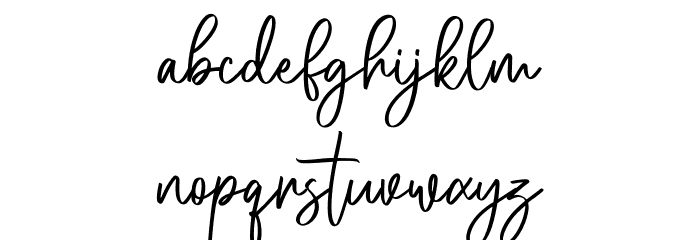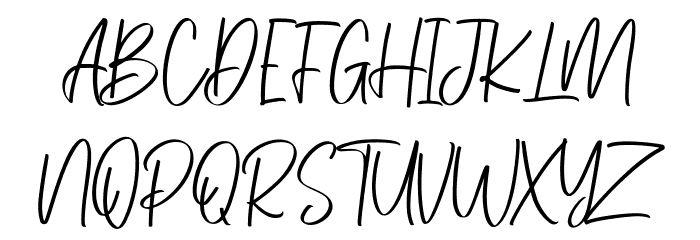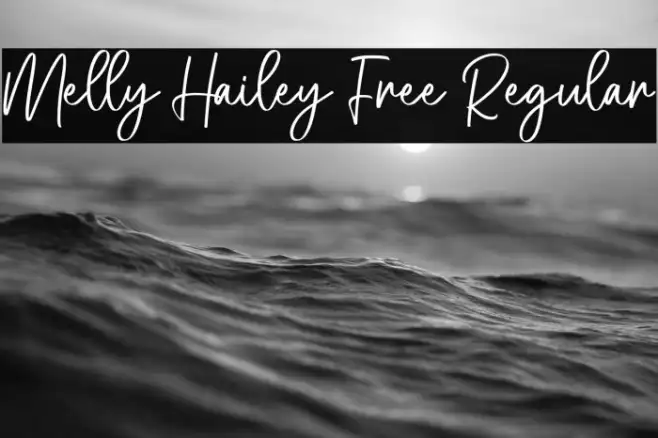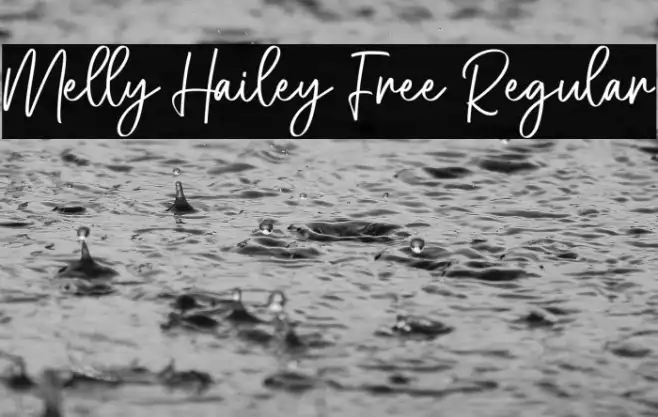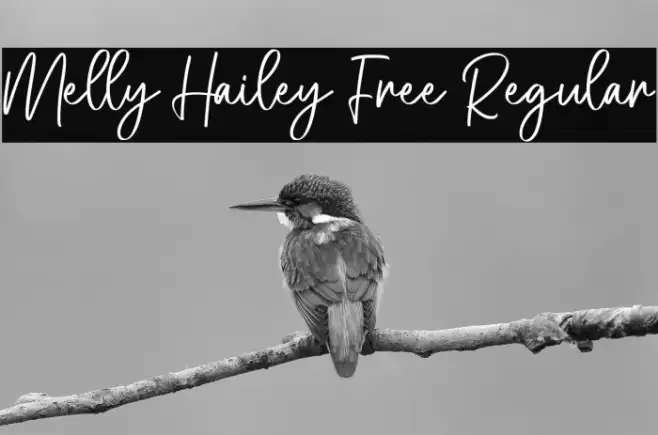
Melly Hailey Free Regular Font
This font features a flowing, handwritten style that exudes elegance and personality. The letters are characterized by their smooth, cursive strokes and slight slant, giving them a dynamic and lively appearance. The uppercase letters are bold and prominent, while the lowercase letters maintain a consistent flow, enhancing readability. The numbers and special characters are designed to match the overall aesthetic, making this font versatile for various applications. Its playful yet sophisticated look makes it suitable for creative projects.
A flowing, handwritten font with elegant cursive strokes.
- Proposed Projects: Ideal for wedding invitations, greeting cards, branding, and social media graphics.
- Use Case: Logos, Headlines, Invitations